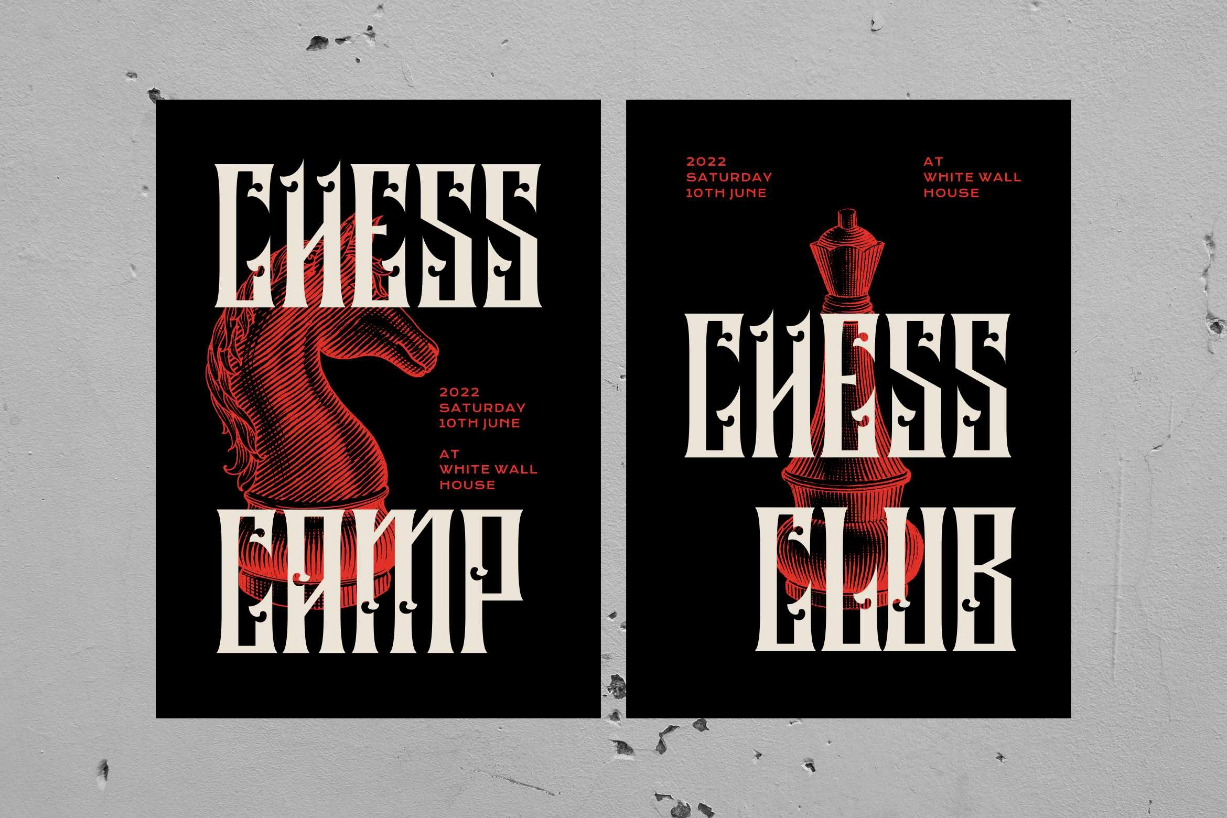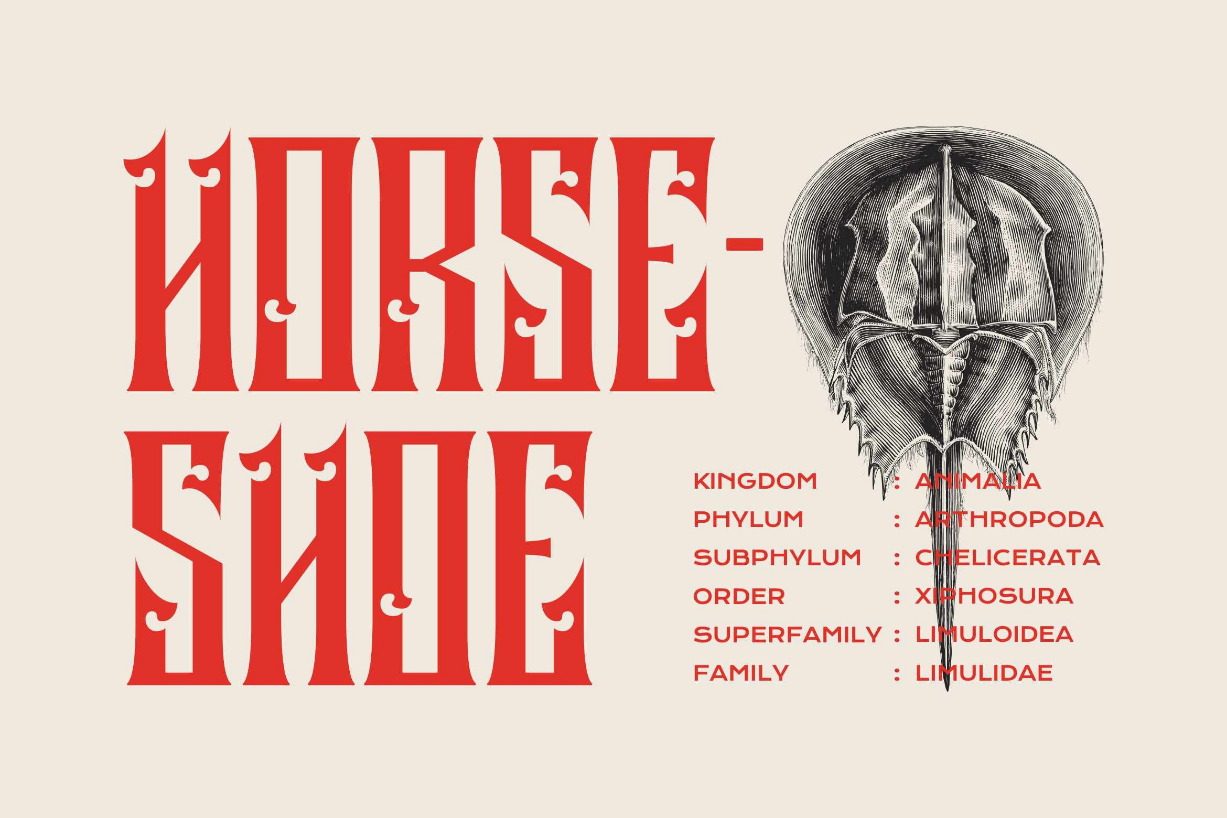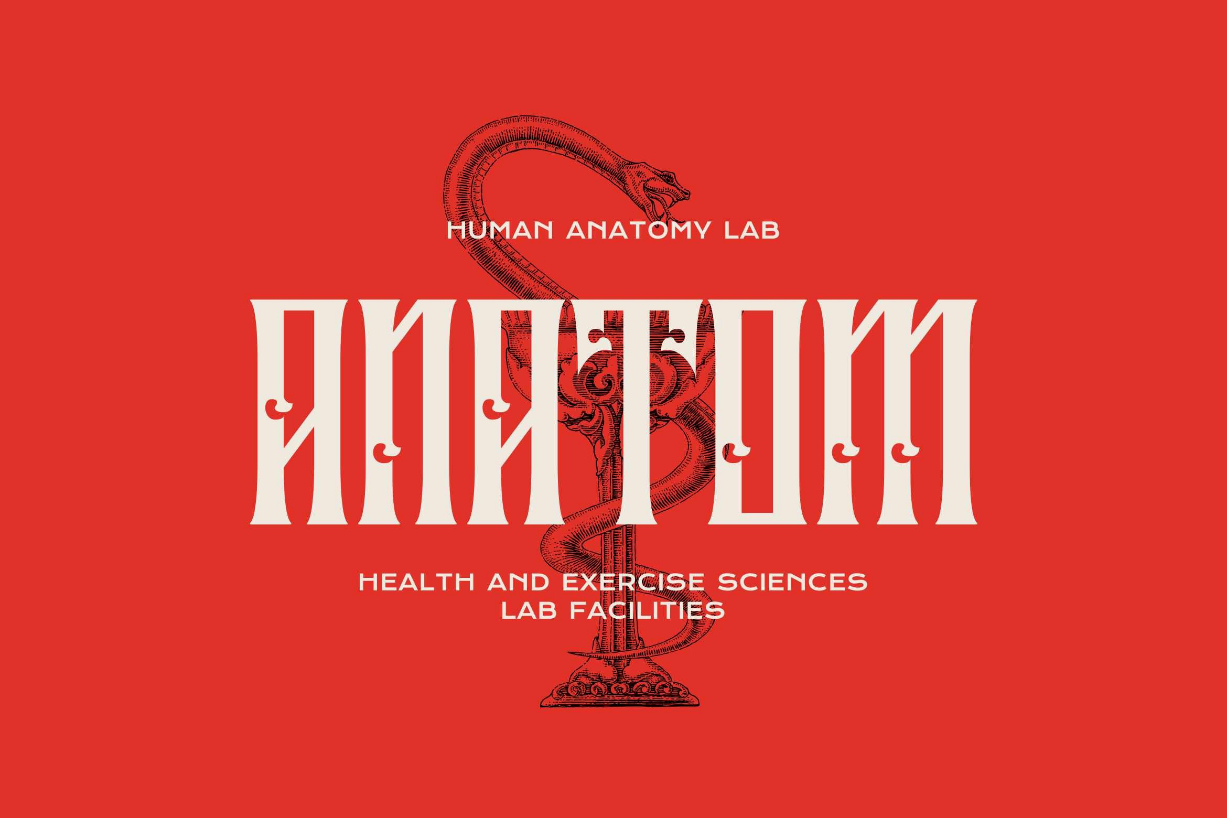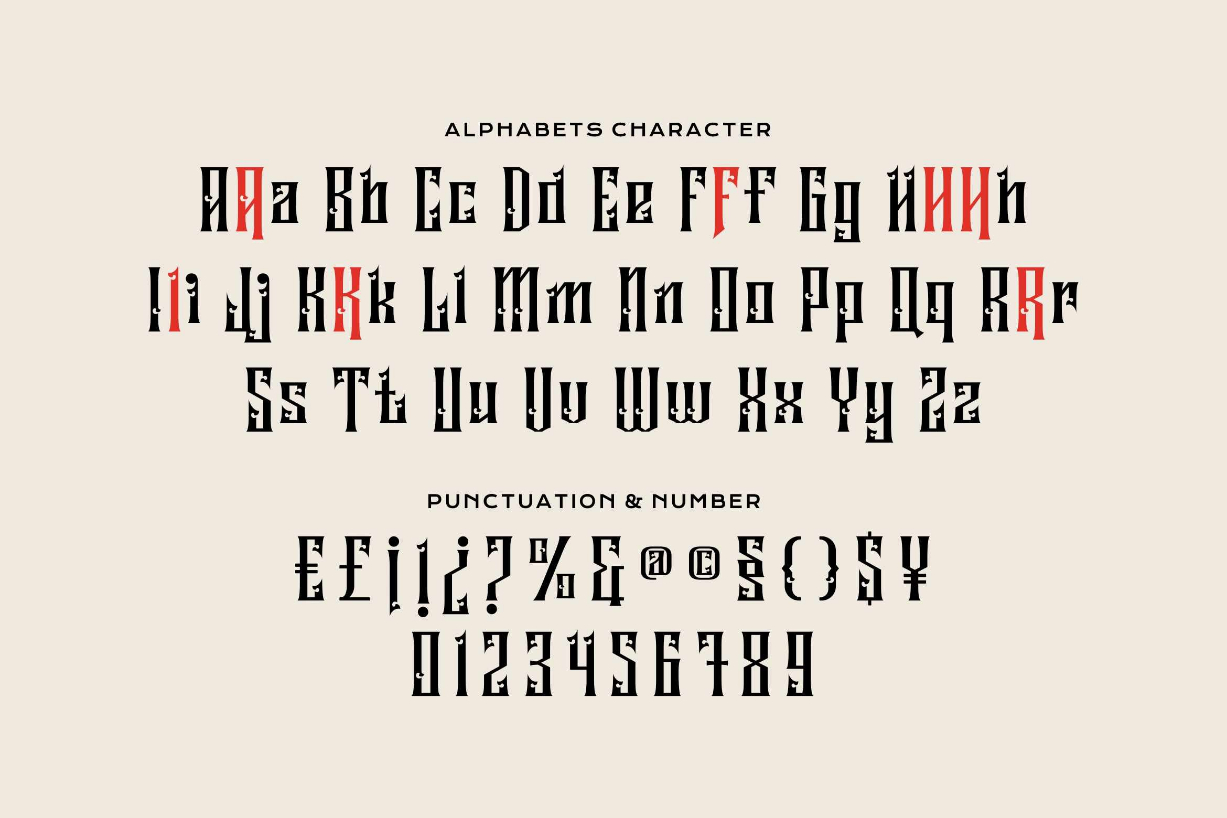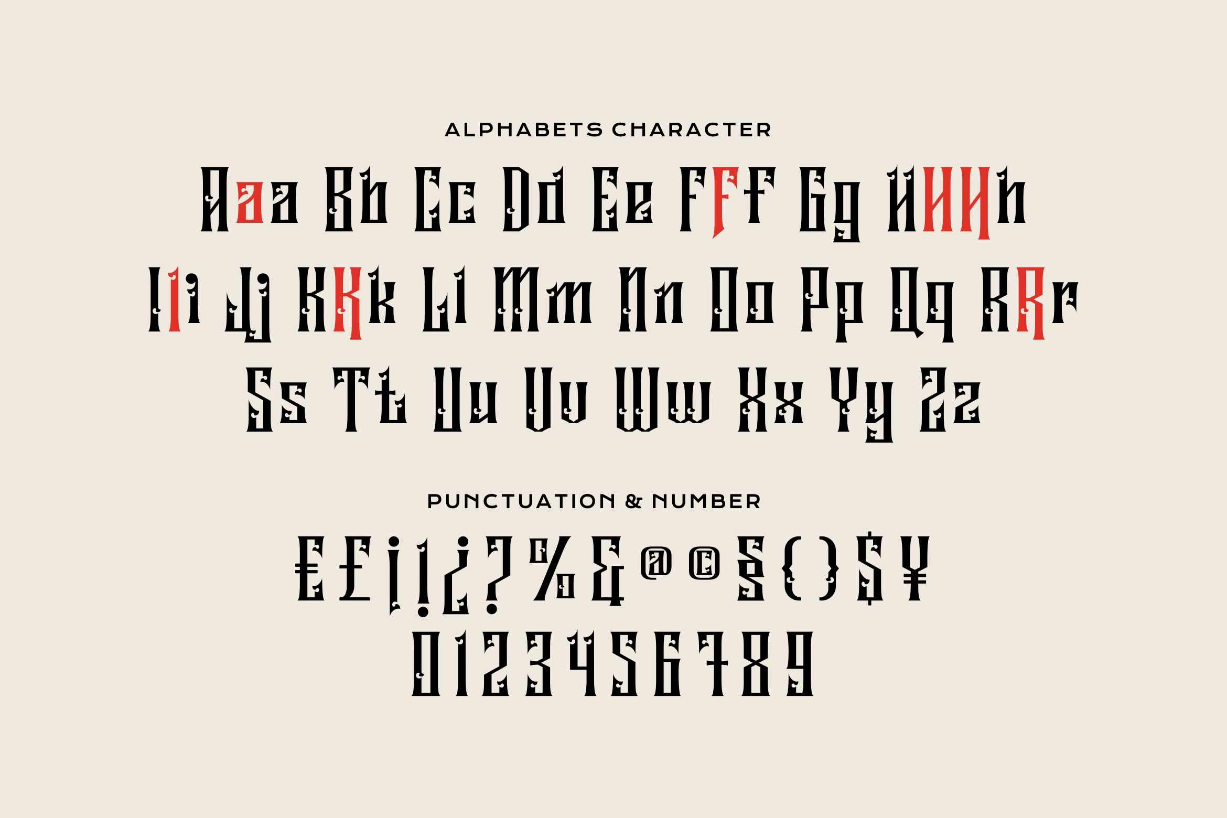
About Liberok Font
Liberok is a blackletter font with an authentic style. This stylish typeface is perfect for poster designs, branding, cards, tattoos, or other design needs. Liberok is PUA encoded which means you can access all the glyphs and alternates with ease!